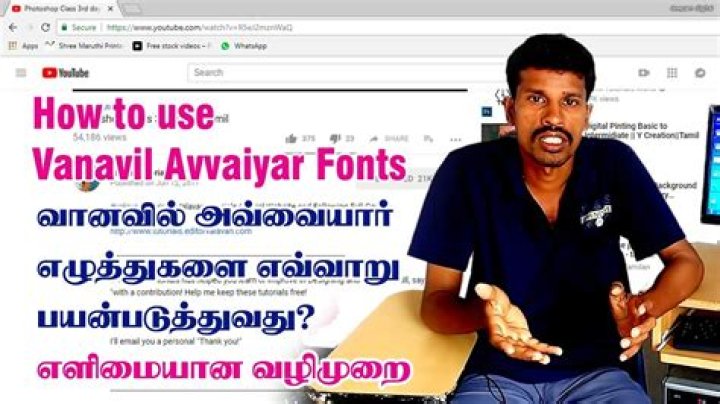
What is Vanavil Avvaiyar font?
VANAVIL-Avvaiyar Regular is a popular Tamil font which is a Regular OpenType font for the Tamil language users. Due to the simple and elegant calligraphy of this font in Tamil language, it is most preferred and downloaded by our users. This font is useful in creating Blogs and Articles Headings and Banner Ads.
What is Avvaiyar regular?
VANAVIL-Avvaiyar Regular is a Unicode Standard Tamil Script utilized by Tamil speakers in India, Sri Lanka, Malaysia, Singapore, Indonesia, and somewhere else to compose the Tamil language. It is an OpenType-based text style family, intended to be a modern, humanist-style typeface.